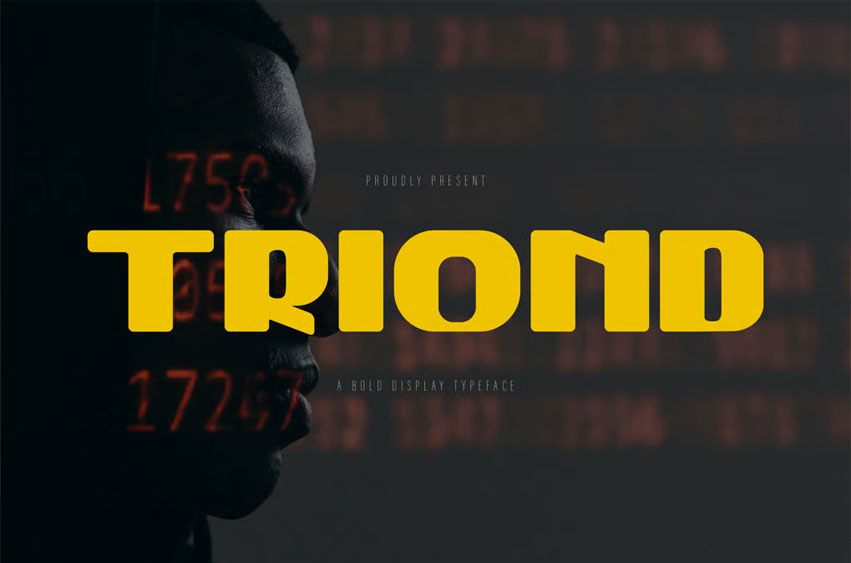
Triond Font is a futuristic font designed to embody the essence of advanced technology and sleek modernism. With its sharp angles, clean lines, and dynamic structure, Triond creates a sense of motion and innovation.
Perfect for digital media, tech branding, and cutting-edge design projects, this font captures the spirit of the future while remaining highly readable.